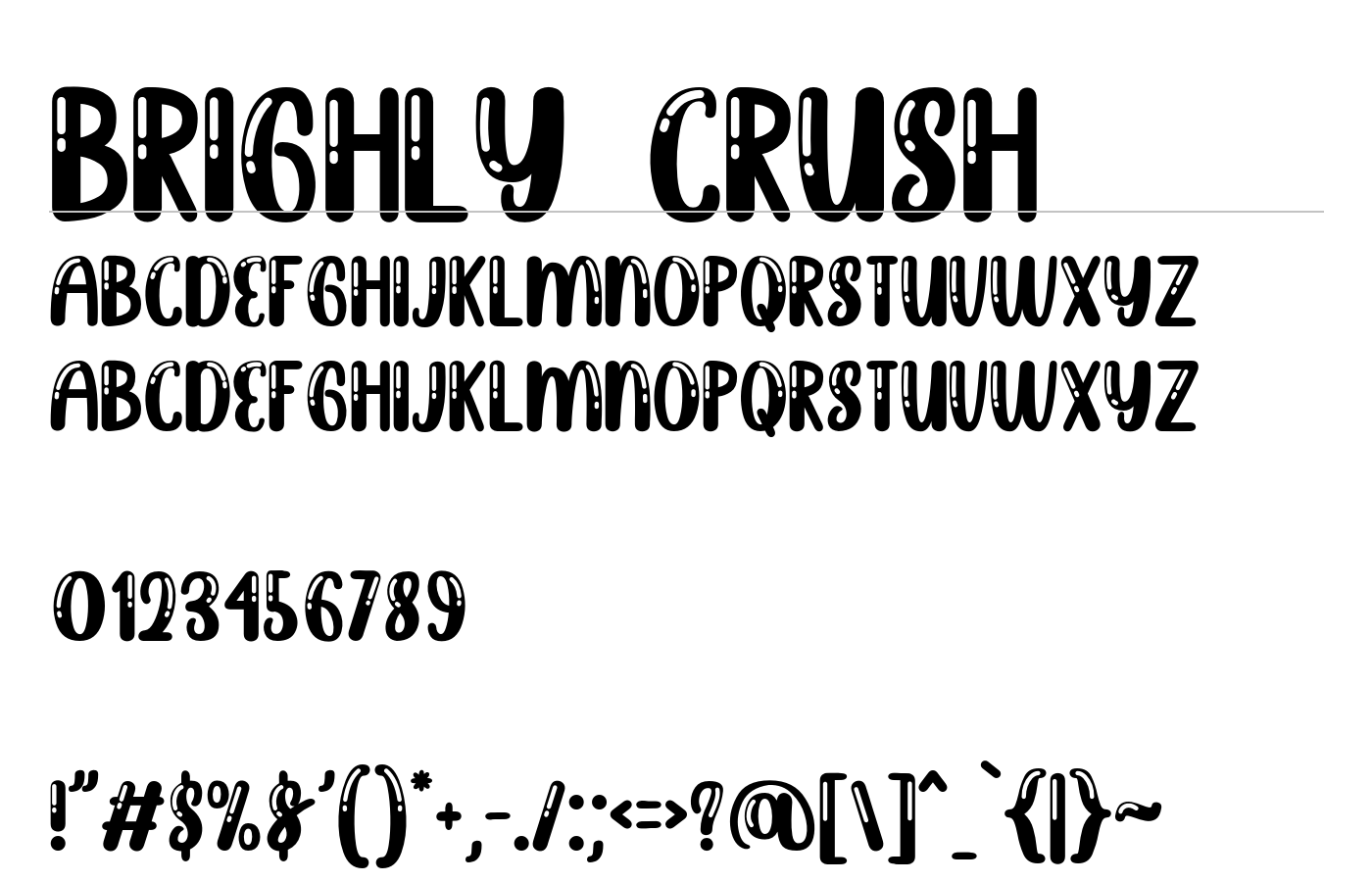
Brightly Crush is a playful and bold sans serif font with a unique bubbly style, featuring rounded strokes and whimsical dot details that add a lighthearted, fun personality. Its tall, condensed letterforms with consistent weight and smooth curves make it ideal for eye-catching headlines, logos, and creative packaging that want to convey a cheerful and lively vibe. This font works well in designs aimed at younger audiences or brands seeking a friendly, approachable look that stands out with its distinctive charm.
Brighly Crush Font
About Brighly Crush Font